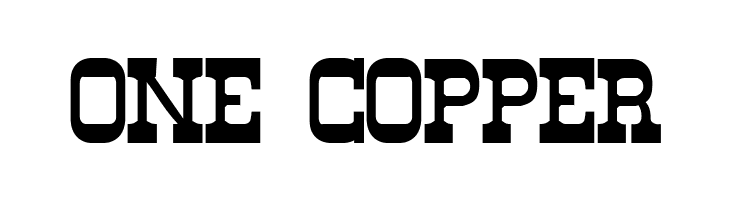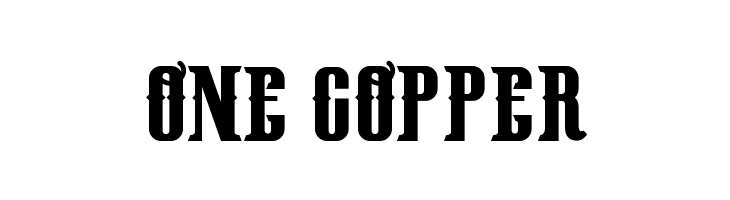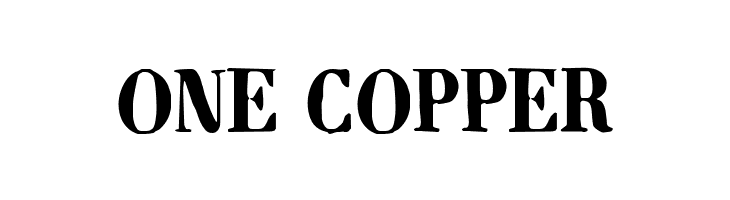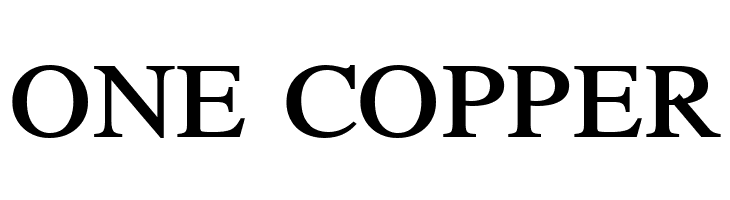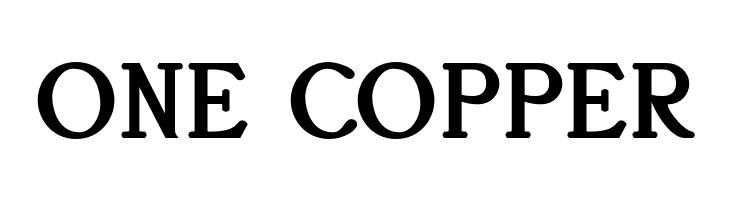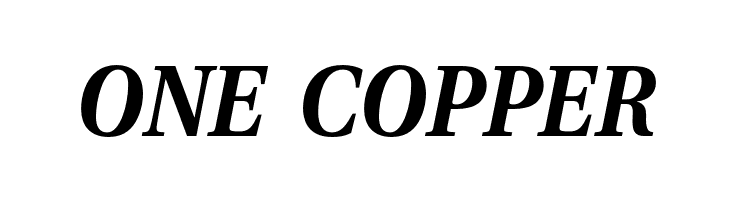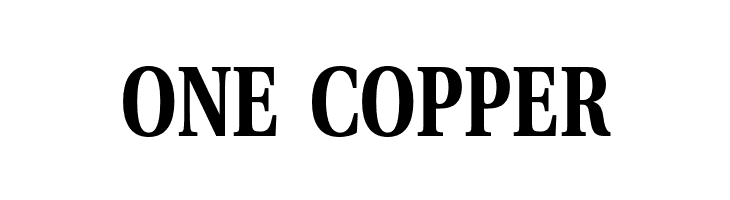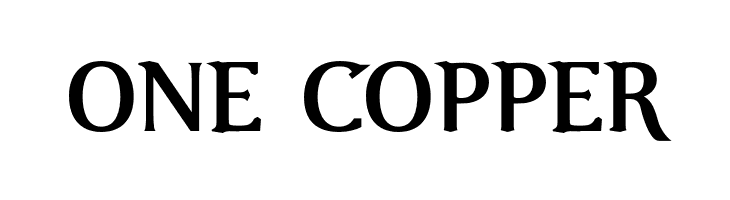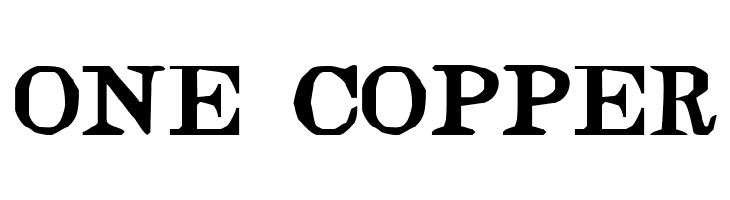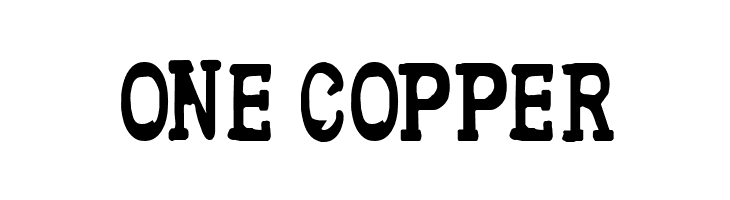
A bold slab serif font with a classic Western style.
A bold slab serif font with strong, block-like serifs and a vintage yet modern appeal.
A classic serif font with bold, elegant strokes and a Renaissance-inspired design.
A bold blackletter font with intricate, angular letterforms and a historic feel.
A bold, decorative font with a vintage circus and wild west flair.
A bold, vintage serif font with dramatic strokes and sharp serifs.
A bold, angular blackletter-inspired font with a dramatic and authoritative style.
A classic serif font with bold, elegant characters and moderate contrast.
A bold, classic serif font with moderate contrast and refined serifs.
A bold, slab serif font with a strong and authoritative presence.
A bold serif typeface with high contrast and classic elegance.
A bold, classic serif font with moderate contrast and elegant serifs.
A bold, classic serif font with moderate contrast and pronounced serifs.
A bold serif font with a classic yet modern appeal, featuring sharp and clean characters.
A bold, classic serif font with strong strokes and pronounced serifs.
A bold, classic serif typeface with strong strokes and pronounced serifs.
A bold, italic serif font with a classic and elegant style.
A bold, classic serif font with strong, authoritative strokes.
A bold, classic serif font with strong strokes and clear characters.
A bold, classic serif font with elegant curves and flared serifs.
A bold serif typeface with high contrast and strong, classic serifs.
A classic serif font with a bold, condensed style and elegant curves.
A robust slab serif font with strong, block-like serifs and a classic yet modern style.
A bold, slab serif font with high contrast and strong, authoritative character design.
A classic serif font with elegant, elongated letterforms and pronounced serifs.